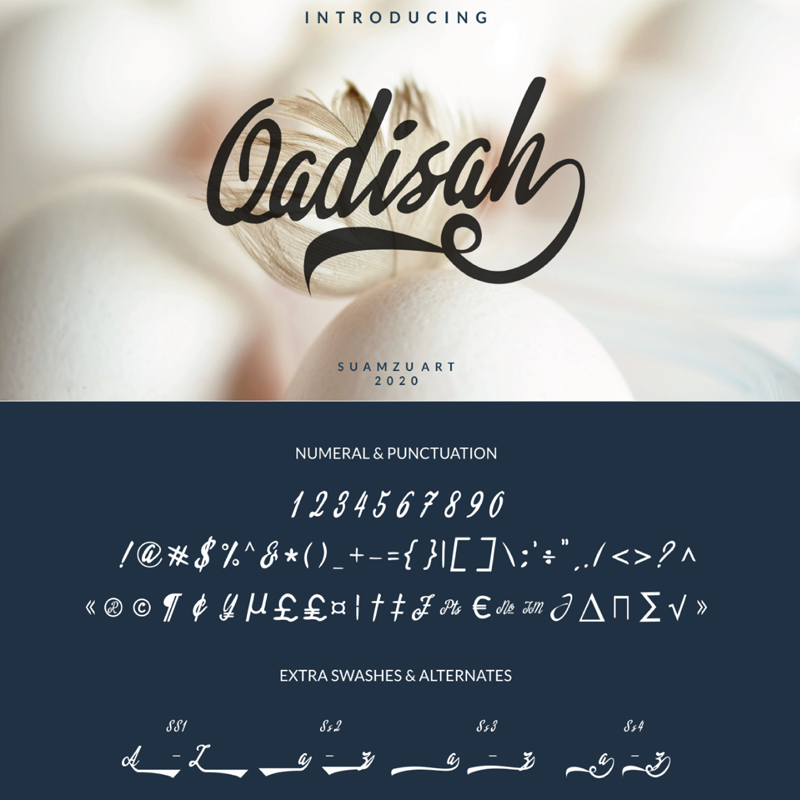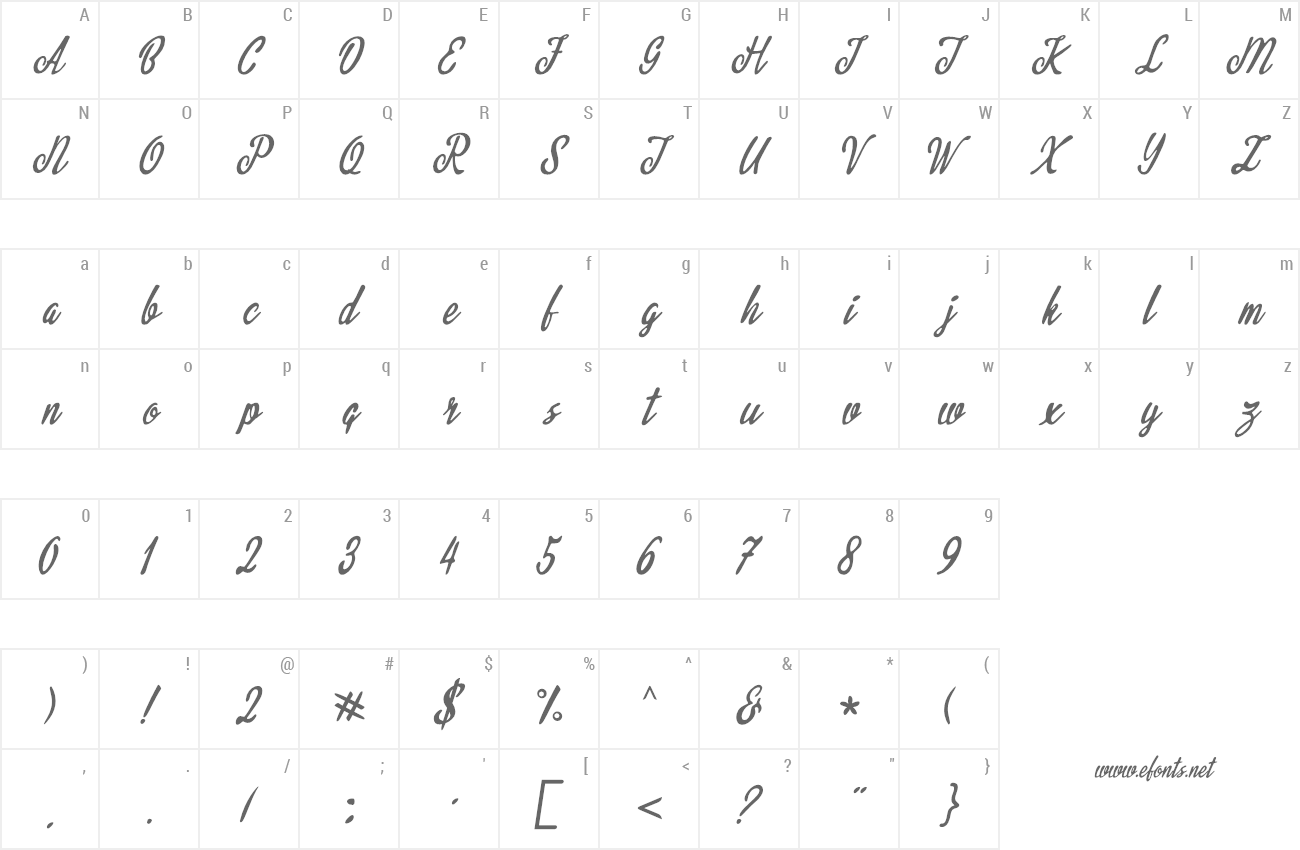
Preview and download Qadisah Font. Created by Suamzu Art in Script Old School styles with Free for personal use license.
Qadisah feels equally charming and elegant. It looks stunning on wedding invitations, thank you cards, quotes, greeting cards, logos, business cards and every other design which needs a handwritten touch. This font is PUA encoded which means you can access all of the glyphs and swashes with ease! It features a varying baseline, smooth lines, gorgeous glyphs and stunning alternates Please contact me before commercial use. My font for free use is only allowed in private, non-profit projects. If you make money from using my font, please buy a commercial license. https://www.creativefabrica.com/product/quency-cutenees/ or email: suamzu.art@gmail.com For a company license, contact me via email Contact me at suamzu.art@gmail.com And follow my Instagram for updates: @suamzuart And follow my Behance for updates: https://www.behance.net/suamzuart If you want to DONATE click here http://www.paypal.me/amrullah03 More... |